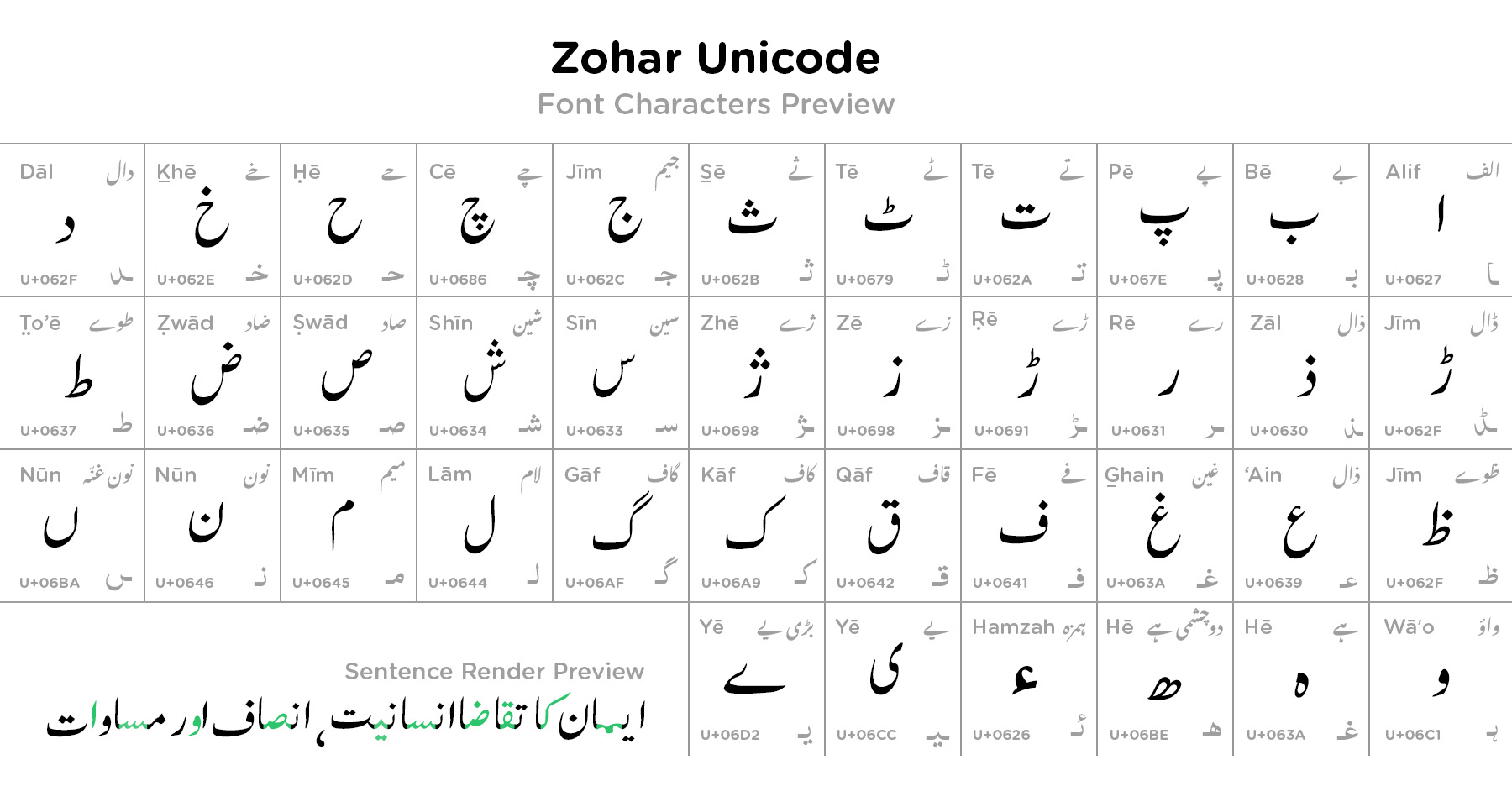
Zohar Unicode, crafted by Syed Manzar Hasan Zaidi and released by Axis Softmedia Pvt. Ltd., shows the essence of the traditional Nastaliq script, offering a natural and authentic appearance. With its flowing and untidy handwritten look and feel, the font offers a very welcoming effect to your text. With 444 characters and 497 glyphs, it supports multiple languages, including Arabic, Latin, Greek, and Symbols. Ideal for long texts, Zohar maintains high legibility on screen with its clear letterforms and delicate strokes. Its thin lines and slightly untidy letterforms, featuring subtle waves, add to its natural feel and charm. The font's plain and simple look, combined with equal spacing, rounded corners, and sharp but thick edges, lends itself well to various applications such as poetry, digital signs, advertising, and clothing designs. Whether used for digital signs, poetry, or creative posters, Zohar Unicode offers a versatile solution that combines readability with a handwritten aesthetic, making your text appear genuine and inviting. With comprehensive Unicode block compatibility, it seamlessly integrates into various design projects, ensuring clarity and impact across different platforms.